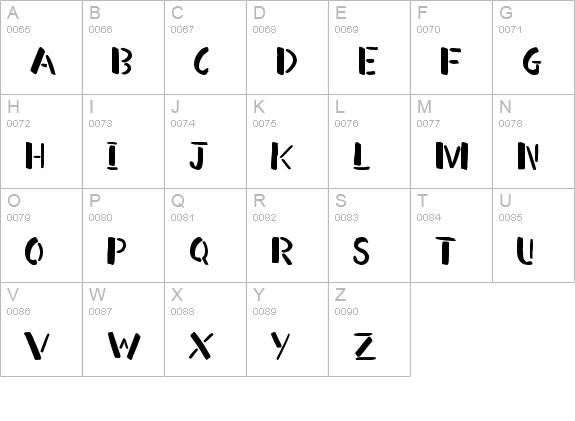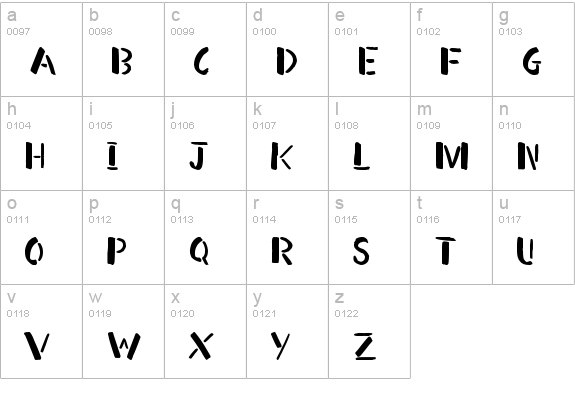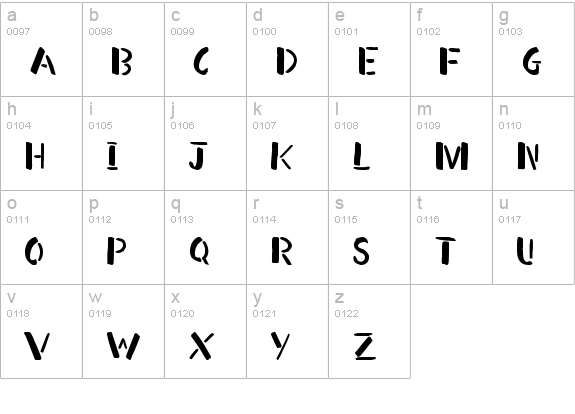
Free Stencil is a free for personal use font in the Modern > Stencil category. It has been downloaded 18 times and is available for Windows, Mac and Linux.
Introducing Free Stencil font, a versatile and eye-catching typeface that is perfect for adding a touch of creativity to your designs. This unique font boasts a bold and impactful stencil style, making it ideal for a wide range of projects, from posters and logos to signage and packaging. What sets Free Stencil font apart is its accessibility - it is available for free download at FontsMarket.com. This means that designers and creatives can easily access and utilize this stunning font without any cost. Whether you're a professional designer looking to add a unique element to your work or a hobbyist seeking to enhance your personal projects, Free Stencil font is the perfect choice. The clean and modern lines of Free Stencil font make it highly legible, ensuring that your message is communicated effectively. Its bold and commanding appearance grabs attention and adds a touch of sophistication to any design. With a wide range of glyphs and characters, this font offers endless possibilities for customization and creative expression. Whether you're aiming for a military-inspired design, a street art aesthetic, or simply want to add a touch of urban edge to your project, Free Stencil font is a must-have. Its versatility and timeless appeal make it suitable for a variety of applications, from branding and advertising to digital and print media. So why wait? Download Free Stencil font today from FontsMarket.com and unlock a world of creative possibilities. With its bold and striking appearance, this font is sure to make a lasting impression on your audience. And the best part? It's completely free! Embrace the power of Free Stencil font and take your designs to new heights.